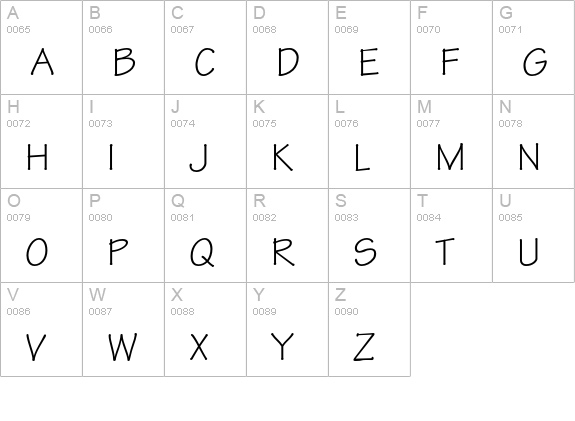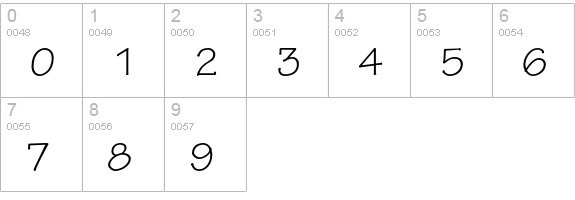
Tekton Pro is a captivating and versatile font that effortlessly combines elegance with a touch of ruggedness. This timeless typeface is perfect for projects that require a blend of sophistication and authenticity, making it an ideal choice for designers, artists, and creatives alike. With its clean lines and distinct letterforms, Tekton Pro exudes a sense of confidence and reliability. Its unique design draws inspiration from architectural blueprints and technical drawings, giving it a distinctive and memorable appearance. One of the most remarkable features of Tekton Pro is that it is freely available to download at FontsMarket.com. This means that you can easily access this exceptional font without any cost, allowing you to explore its potential in your creative endeavors without any limitations. Whether you are designing a logo, creating a brochure, or crafting a website, Tekton Pro offers a wide range of weights and styles to suit your specific needs. Its versatility ensures that it can be used in various contexts, from bold headlines to subtle body text, adding a touch of professionalism to any project. The legibility of Tekton Pro is another noteworthy aspect of this font. Its clean and well-defined characters guarantee clear and easy-to-read text, even at smaller sizes. This makes it an excellent choice for both print and digital media, ensuring that your message is effectively communicated to your audience. In addition to its aesthetic appeal, Tekton Pro also boasts excellent kerning and spacing, resulting in a harmonious and balanced visual experience. Its meticulous attention to detail ensures that every letter, every curve, and every line is precisely crafted, enhancing the overall quality and readability of your designs. Whether you are a seasoned designer or a beginner exploring the world of typography, Tekton Pro is a font that will undoubtedly elevate your creative projects. Its timeless elegance, rugged charm, and impeccable craftsmanship make it a truly exceptional choice. And with the added advantage of being freely available to download at FontsMarket.com, there is no reason why you shouldn't give this remarkable font a try. So go ahead, unleash your creativity, and let Tekton Pro transform your designs into works of art.